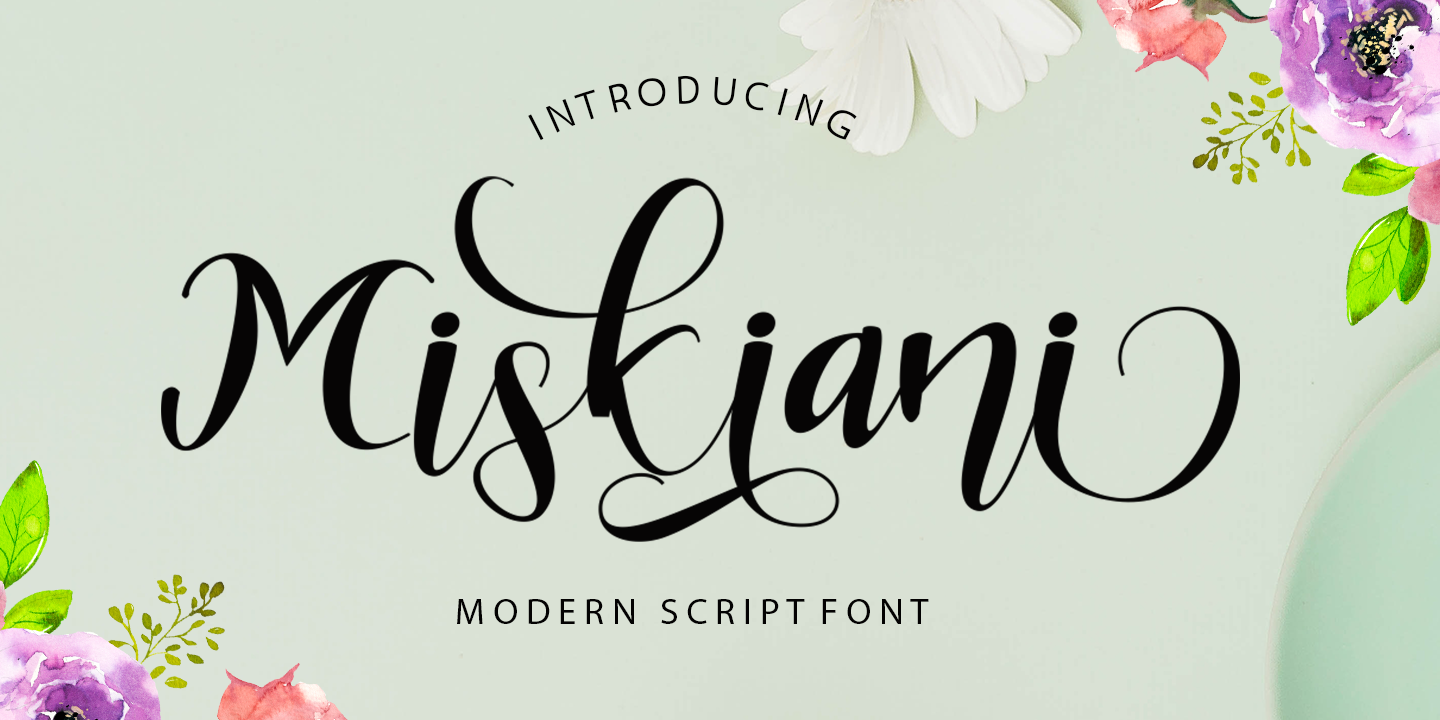
Miskiani Script Font is an elegant and flowing typeface, perfectly suited for designs that call for a touch of personal charm and sophistication. Imagine it gracefully adorning wedding invitations, adding an artistic flair to luxury product branding, or creating captivating signatures on handcrafted goods. Its natural handwritten feel also makes it an excellent choice for designing personalized stationery, unique social media graphics, and elegant editorial layouts. Whether you're aiming for a romantic, artisanal, or distinctly personal aesthetic, Miskiani Script Font offers a beautiful and impactful visual statement that truly stands out.
What makes Miskiani Script Font particularly exciting is its authentic and expressive brushstroke quality. It doesn't just mimic handwriting; it captures the spontaneous and artistic energy of genuine calligraphy, complete with beautiful swashes and ligatures that connect characters seamlessly. This gives your text a bespoke, handcrafted appearance that feels warm and inviting, making it ideal for projects where you want to convey a sense of intimacy and authenticity. It’s a font that breathes life into words, turning simple text into an engaging visual experience. The fluidity and elegance of its design contribute to a premium feel, making it perfect for high-end design work.
The Miskiani Script Font family often comes with a rich array of OpenType features, designed to enhance its handwritten authenticity and provide extensive customization options. While script fonts typically don't have multiple weights like sans-serifs, Miskiani Script Font often includes stylistic alternates for many characters, allowing you to choose different letterforms to create a truly unique look. You'll frequently find a generous collection of ligatures that smoothly connect common letter pairs, ensuring a natural flow and avoiding awkward gaps. Additionally, many versions offer beautiful swashes that can be added to the beginning or end of words, providing an extra touch of flourish. Exploring these features, especially with Miskiani Script Font Free Download, will allow you to unlock its full creative potential and achieve a truly distinctive and professional design.